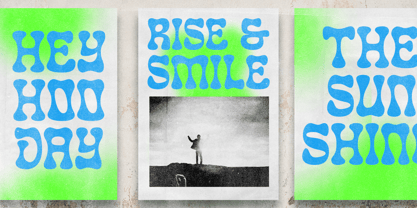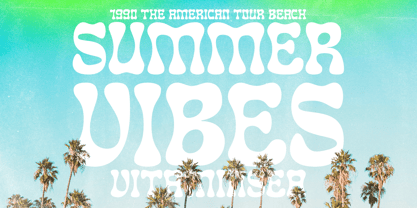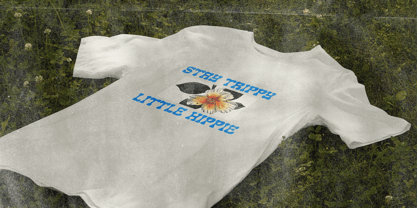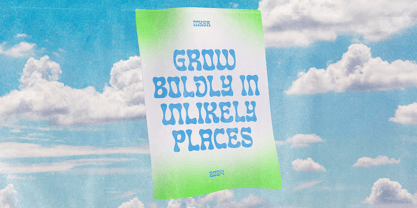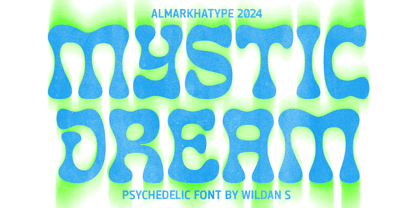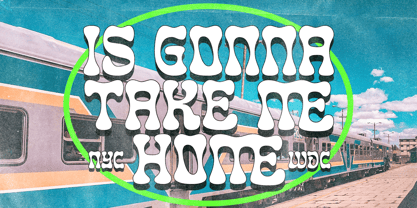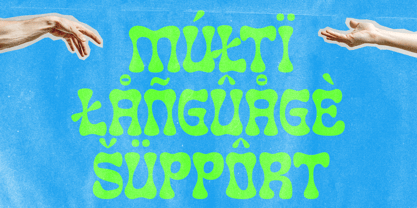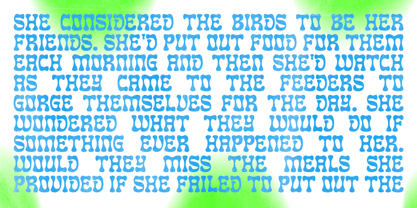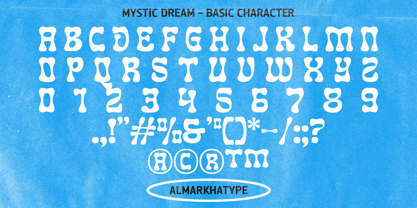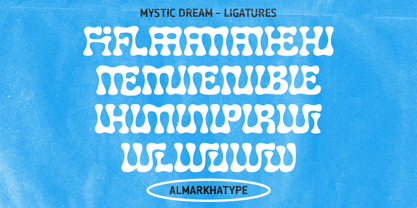
Mystic Dream
por Almarkha Type
La familia tipográfica Mystic Dream fue diseñada por Abdul Malik Wisnu y publicada por Almarkha Type. Mystic Dream contiene 1 estilos. Más información sobre esta familia
Mystic Dream is twisted with a groovy and quirky style, and is designed as an all-caps font. The style of Mystic Dream embraces a retro aesthetic. Mystic Dream is ideal for projects that seek to convey a sense of retro, groovy, and funky. This font design makes it a perfect choice for vintage branding unique brand Identity Branding for artisanal products and businesses Event invitations and programs Decorative prints and posters